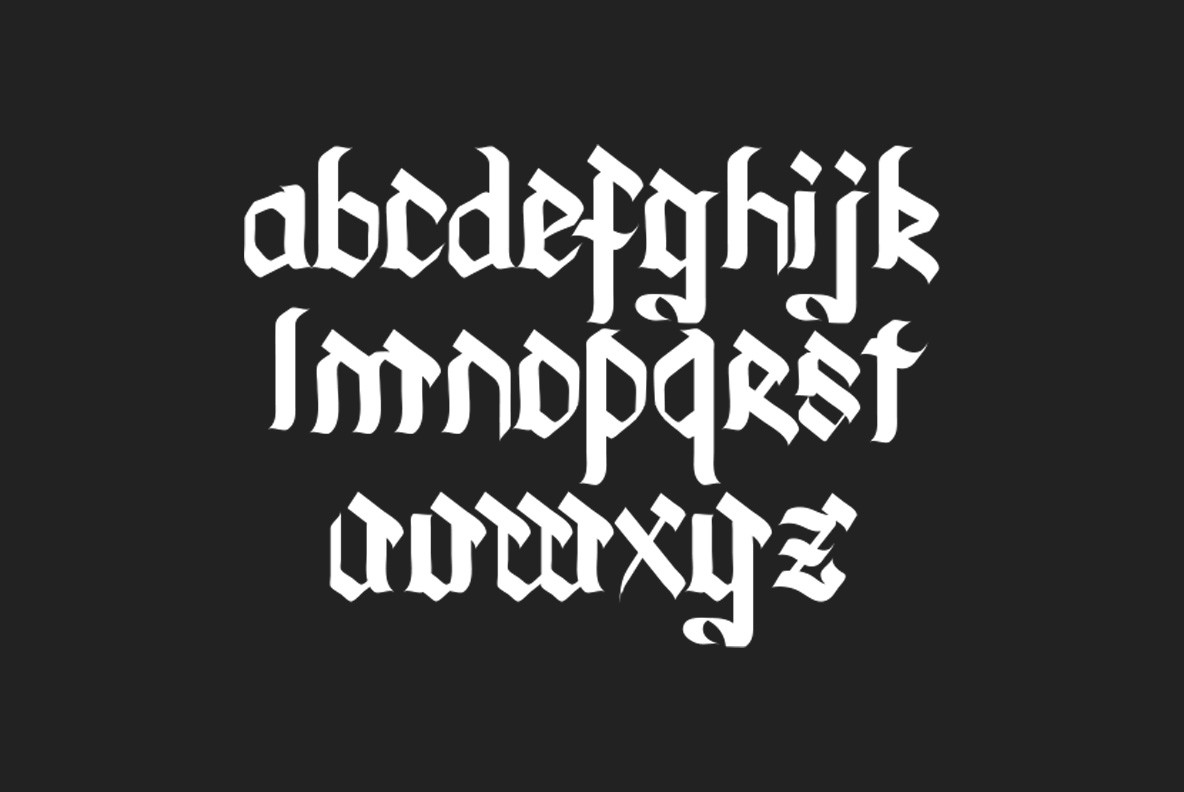
Blood On My Blade 1
Blood On My Blade font is an aggressive blackletter font designed by Trappist Monk in 2016. Inspired by tattoos, the west coast and calligraphy.